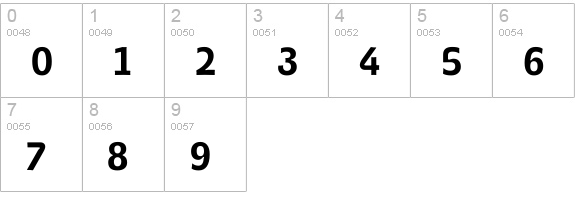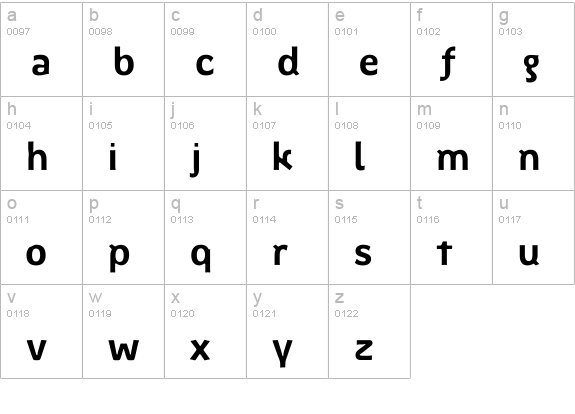
Spotka AlternateBold is a versatile and stylish font that exudes confidence and modernity. With its bold and striking appearance, this font is perfect for creating eye-catching designs that demand attention. The clean lines and sharp edges of Spotka AlternateBold make it ideal for logos, headlines, posters, and more. The best part? Spotka AlternateBold is available for free download at FontsMarket.com. Whether you're a designer looking to add a fresh new font to your collection or someone in need of a standout typeface for a project, Spotka AlternateBold is the perfect choice. Don't miss out on the opportunity to enhance your designs with this sleek and impactful font today.